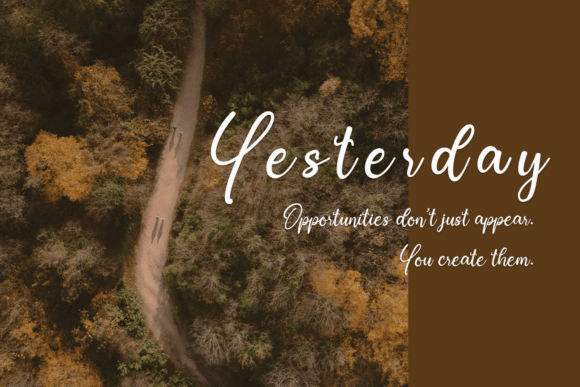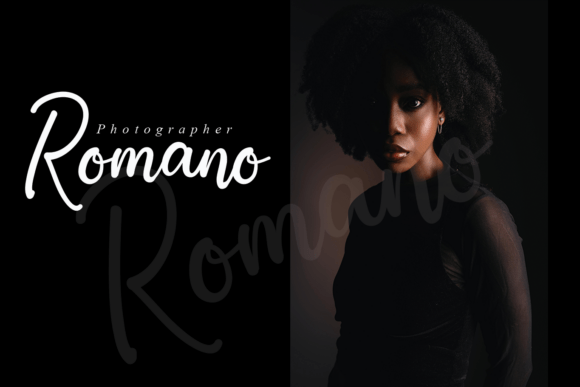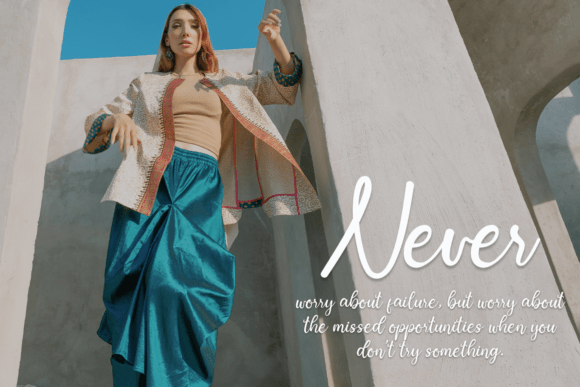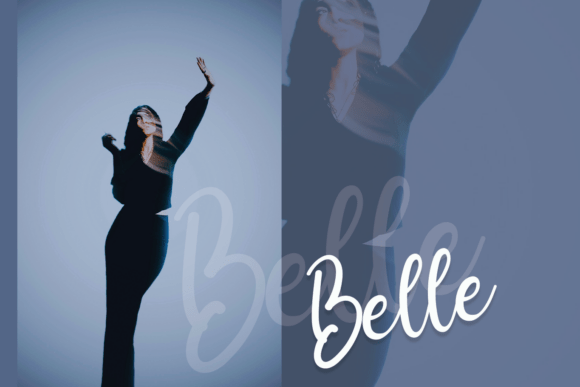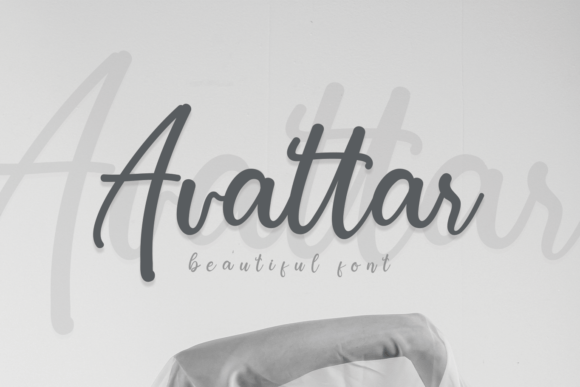
Introducing Avattar Font: Elevate Your Designs with Elegance and Sophistication
Are you a designer or crafter looking for a font that exudes elegance and sophistication? Look no further than Avattar Font, a beautiful handwritten font that is sure to elevate your designs to the next level. With its flowing and graceful lines, Avattar Font is perfect for creating stunning wedding invitations, gorgeous stationery art, eye-catching social media posts, and much more.
The Characteristics of Avattar Font
Avattar Font is a unique and stylish handwritten font that boasts a chic and sophisticated style. Its flowing lines and elegant curves make it perfect for designs that require a touch of luxury and refinement. Whether you’re creating wedding invitations, branding materials, or social media graphics, Avattar Font is sure to make a lasting impression.
What Makes Avattar Font So Versatile?
One of the things that sets Avattar Font apart from other fonts is its versatility. Its elegant and refined style makes it perfect for a wide range of design applications, from formal wedding invitations to social media graphics. Whether you’re creating digital or print materials, Avattar Font is sure to add a touch of sophistication and elegance to your designs.
Using Avattar Font for Wedding Invitations
Wedding invitations are one of the most popular uses for Avattar Font, and for good reason. The font’s elegant and refined style makes it perfect for formal wedding invitations, and its flowing lines and curves add a touch of romance and whimsy. Whether you’re creating traditional or modern wedding invitations, Avattar Font is sure to make a lasting impression on your guests.
Creating Beautiful Stationery Art with Avattar Font
Avattar Font is also perfect for creating beautiful stationery art, including greeting cards, thank you cards, and more. The font’s elegant style and flowing lines make it perfect for adding a touch of sophistication and refinement to your stationery designs. Whether you’re creating digital or print materials, Avattar Font is sure to elevate your designs to the next level.
Eye-Catching Social Media Posts with Avattar Font
Avattar Font is also perfect for creating eye-catching social media posts, including Instagram graphics, Facebook posts, and more. The font’s elegant style and flowing lines make it perfect for adding a touch of sophistication and refinement to your social media graphics. Whether you’re creating promotional graphics or simply want to add a touch of elegance to your social media posts, Avattar Font is sure to make a lasting impression.
Tips for Using Avattar Font Effectively
Here are a few tips for using Avattar Font effectively in your designs:
- Use Avattar Font in combination with other fonts to create a unique and stylish design.
- Use Avattar Font to add a touch of elegance and sophistication to your designs.
- Don’t be afraid to get creative and try new things – Avattar Font is a versatile font that can be used in a wide range of design applications.
Avattar Font is a beautiful and elegant handwritten font that is sure to elevate your designs to the next level. With its flowing lines and refined style, Avattar Font is perfect for creating stunning wedding invitations, gorgeous stationery art, eye-catching social media posts, and much more. Whether you’re a designer or crafter, Avattar Font is a must-have font that is sure to add a touch of sophistication and elegance to your designs.